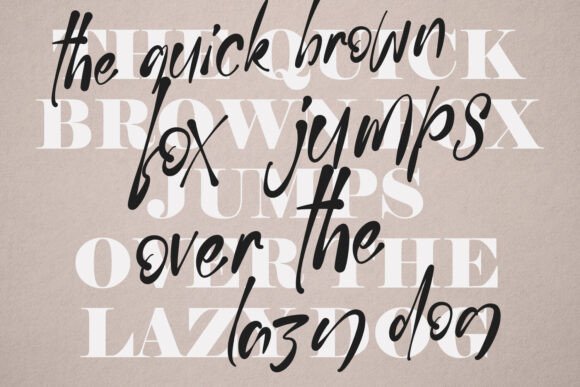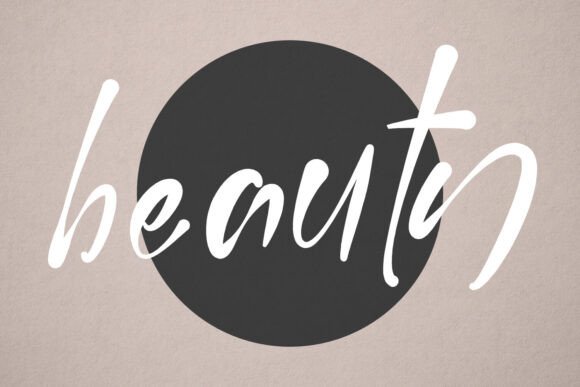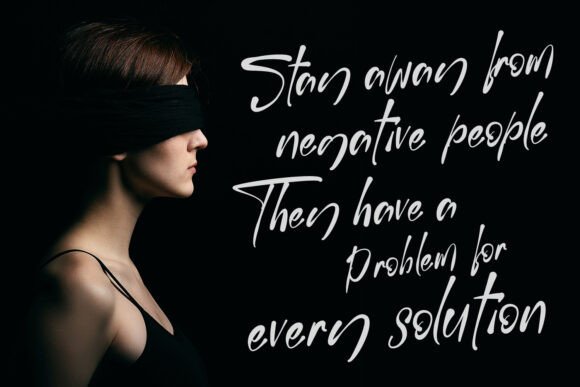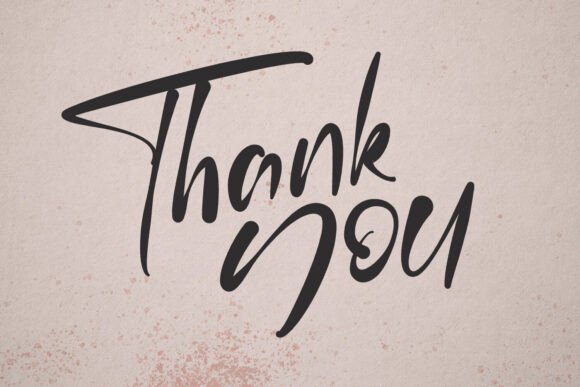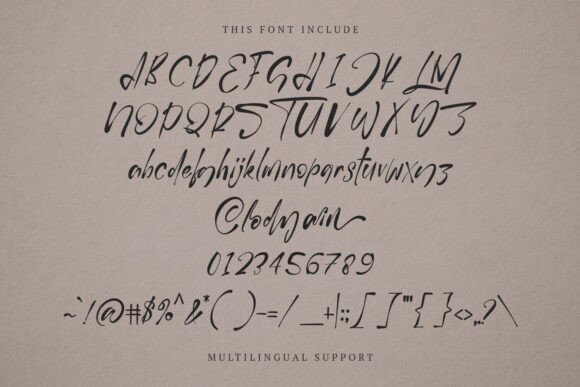
Introduction to Ciloudy Font
Give your designs an authentic brush handcrafted feel.
โCiloudy Signature Brush Fontโ is perfectly suited to signature, stationery, logo, typography quotes, website header, branding and more .